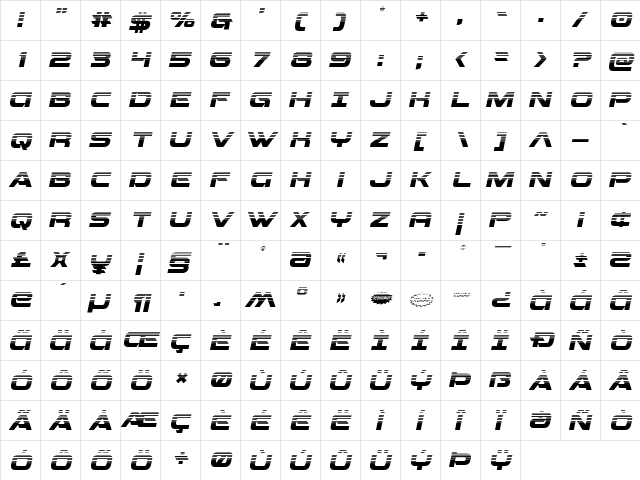
Beam Weapon Halftone Italic Italic
Design Context for Beam Weapon Halftone Italic Typeface
Beam Weapon Halftone Italic is a composed and adaptable typeface that performs quietly and consistently across a wide range of design contexts. Its italic angle brings a sense of urgency and motion to the letterforms.
Pro Tip: Use Beam Weapon Halftone Italic for emphasis, pull quotes, and subheadings where its slanted energy can add rhythm to the layout.